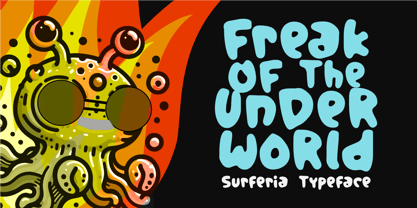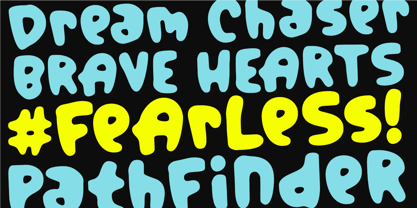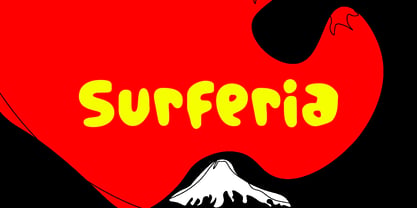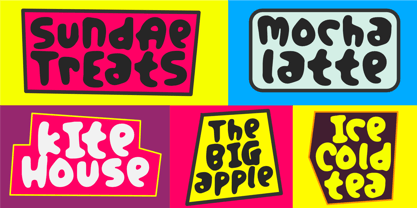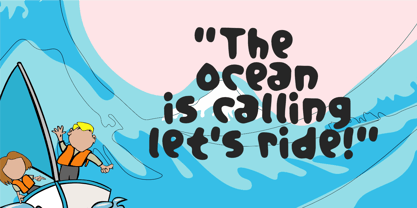
Surferia
by Epiclinez
The Surferia Font Family was designed by Aldy Sidik and published by Epiclinez. Surferia contains 1 styles. More about this family
Surferia is a bold, fun, and playful handwritten font that brings a wave of energy to your designs. With its thick strokes, bouncy baseline, and sunny personality, Surferia captures the carefree spirit of surf culture and childhood joy. Whether you’re creating a logo, book title, movie graphic, product packaging, or gaming interface, Surferia adds a lively and creative touch that stands out.
Perfect for display use, Surferia works beautifully in posters, branding, merchandise, social media posts, and anything that needs a burst of character. Its easy-to-read yet personality-packed style makes it ideal for both kids and youthful brands looking for a handwritten look with impact.